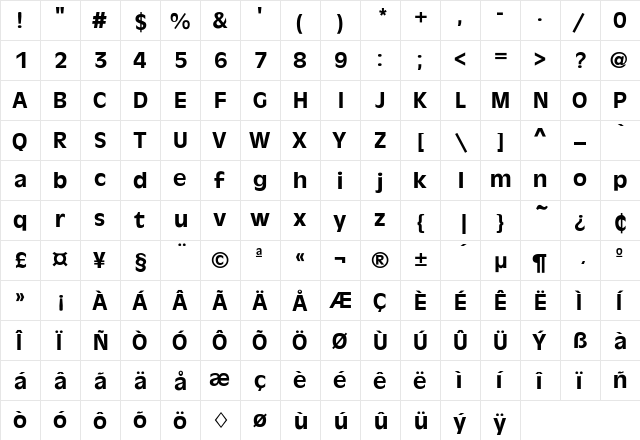
Elegante Th Bold Regular Font Preview
Elegante Th Bold Regular
Design Context for Elegante Th Bold Typeface
Elegante Th Bold offers clean, dependable letterforms without strong stylistic allegiance, making it a practical choice for designers who need flexibility. The heavy weight commands attention and anchors typographic hierarchies.